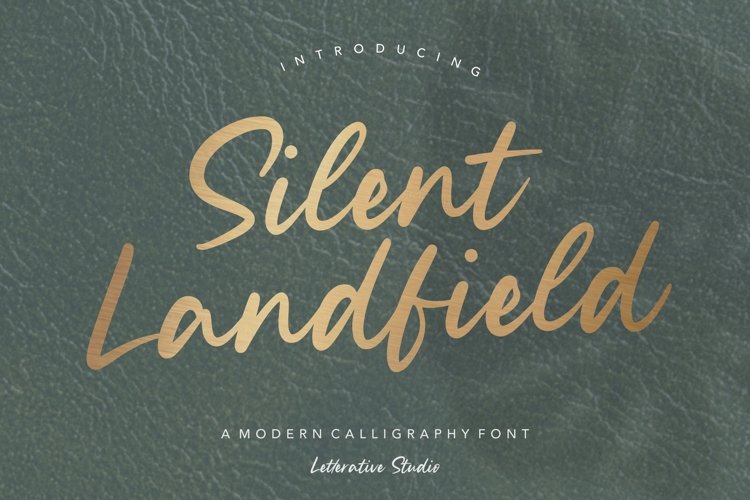
The Ultimate! 50 Font Bundle!
Adorable
Birdhave
Alpinet
Bearline
Angelic Matilda
Aventurine
Badger Delight
Birdwatch
Birdlove
Blackfeast
Blankside
Blackswan
Celosia Golden
Dailymoon
Double Diamond
Camila Raindrop
Fancy Delight
Daily Feather
Castilla
Bright Violet
Eclipse Cinema
Eastern Hillside
Goldwind
Goldena
Heritage
Granite
Howling Sinister
Citruslime
Medium Rosebud
Maledictus
Miracle Sunrise
Oriental Dream
Misty Cotton
Goldie Blanket
Nostalgic
Ruxtoni
Piglets
Miracle Justice
Obladi Script
Nature Violces
Silent Landfield
Sunday Bridge
Seaside
Volatile
Solitude
Winter Sprinkle
Wicked Dream
Sisterhood
Wonder Jasmine
Silent Caroline
The Ultimate!
50 Font Bundle is here with an amazing selection of premium fonts for your crafting and DIY projects.
Give your designs a delicate and versatile feel with this bundle which is perfectly suited for cards, signature, stationery, logo, typography quotes, magazine or book covers.